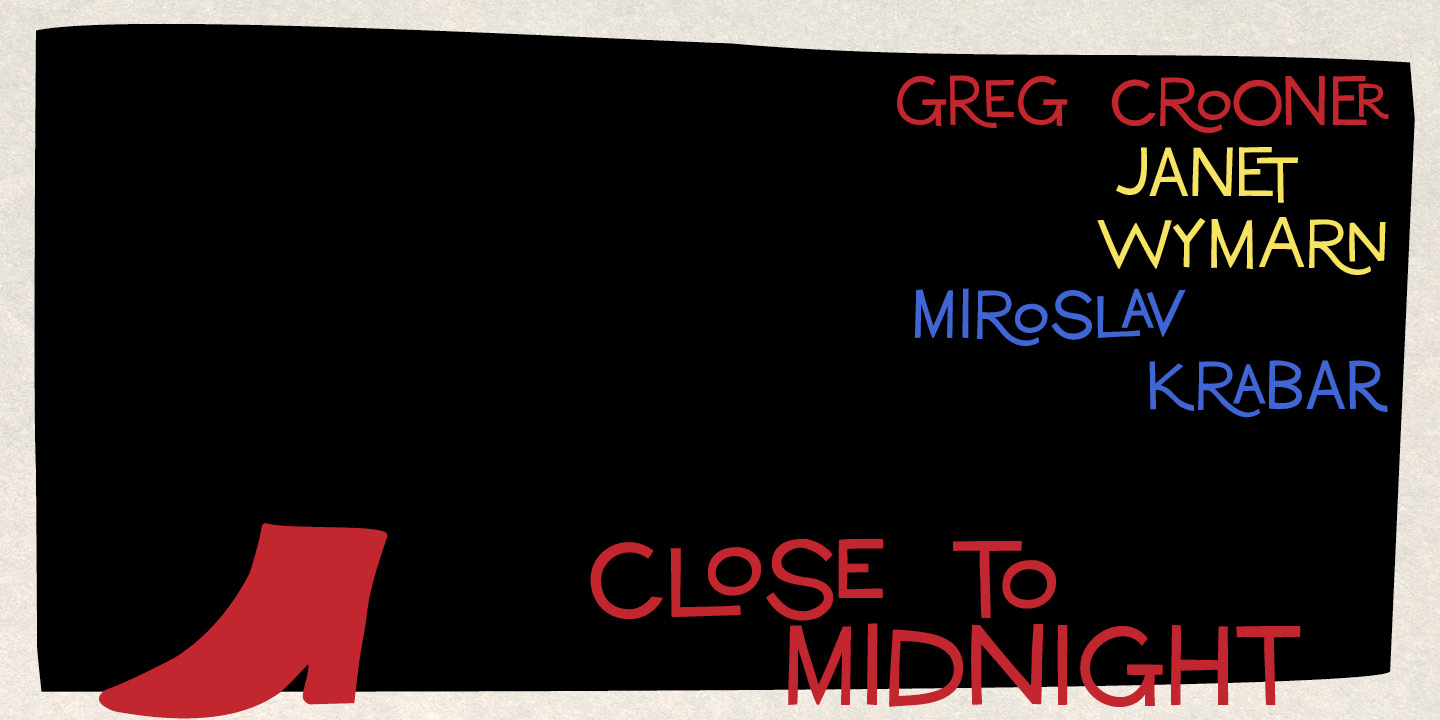
Bassanova
Font Family by Julia Bausenhardt
Bassanova offers four versions for each letter that change automatically and give the font a handlettered feel. It also contains over 100 discretionary ligatures to add even more dynamic letter combinations to the mix.
This cool all-caps typeface fits a wide range of design applications, and it features a full international character set.